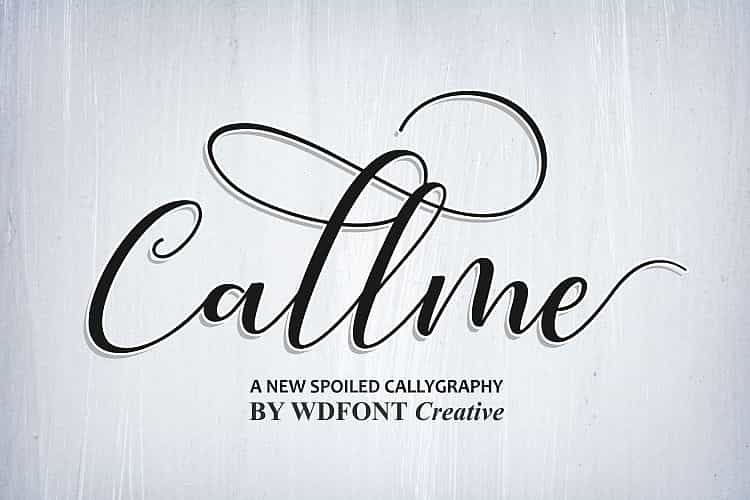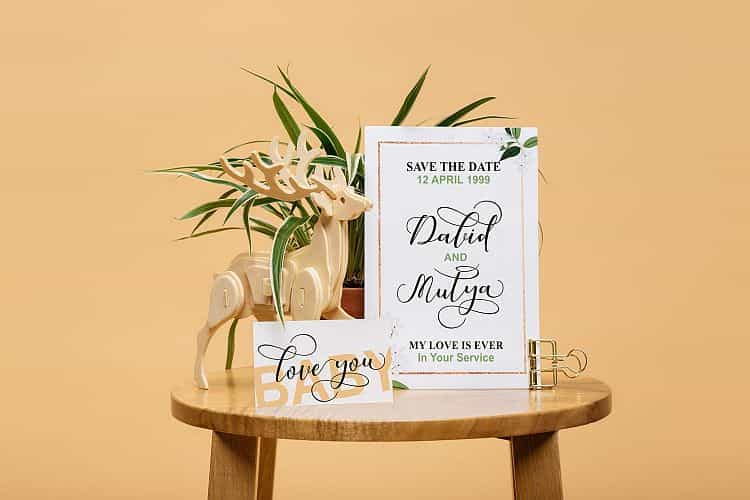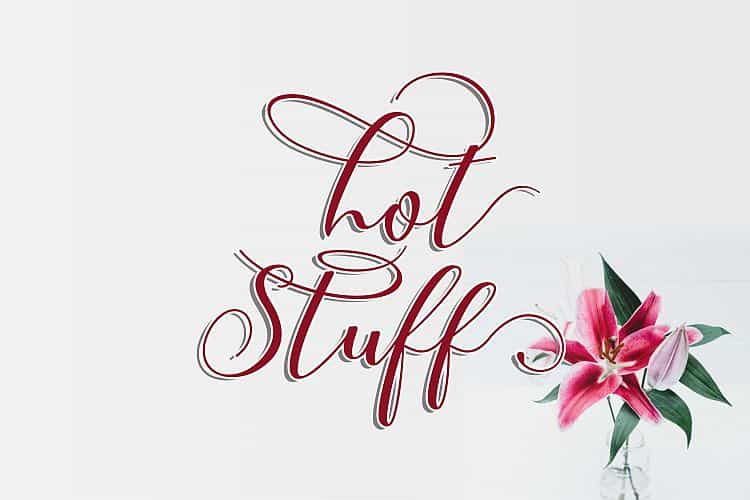
Introducing Callme Font. Callme Script Font is a script font with a smooth handwriting style. It is ideal for branding projects, logos, product packaging and many more!It can be applied as a sophisticated text overlay to any background image or anything that needs a bit of beauty.